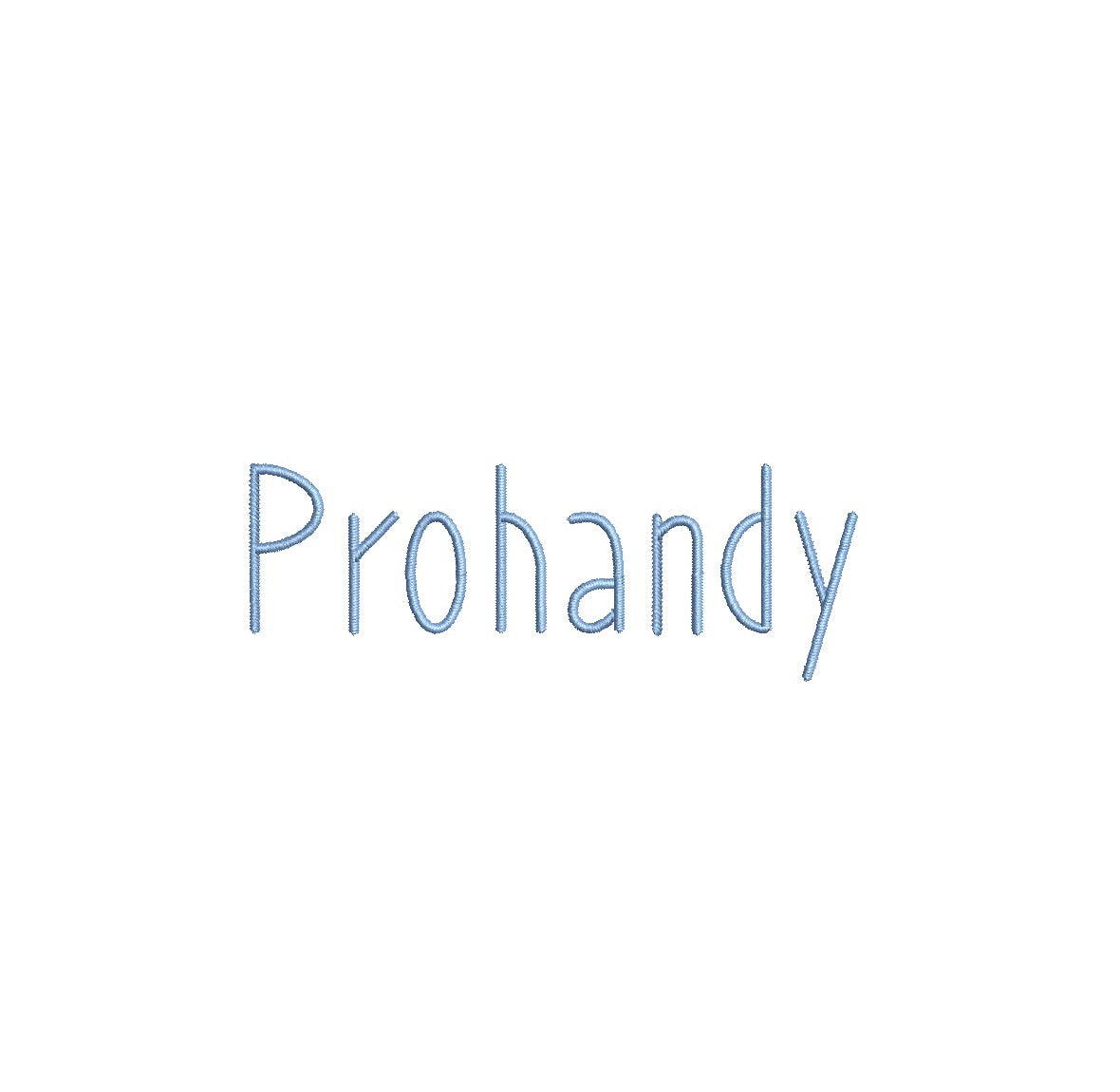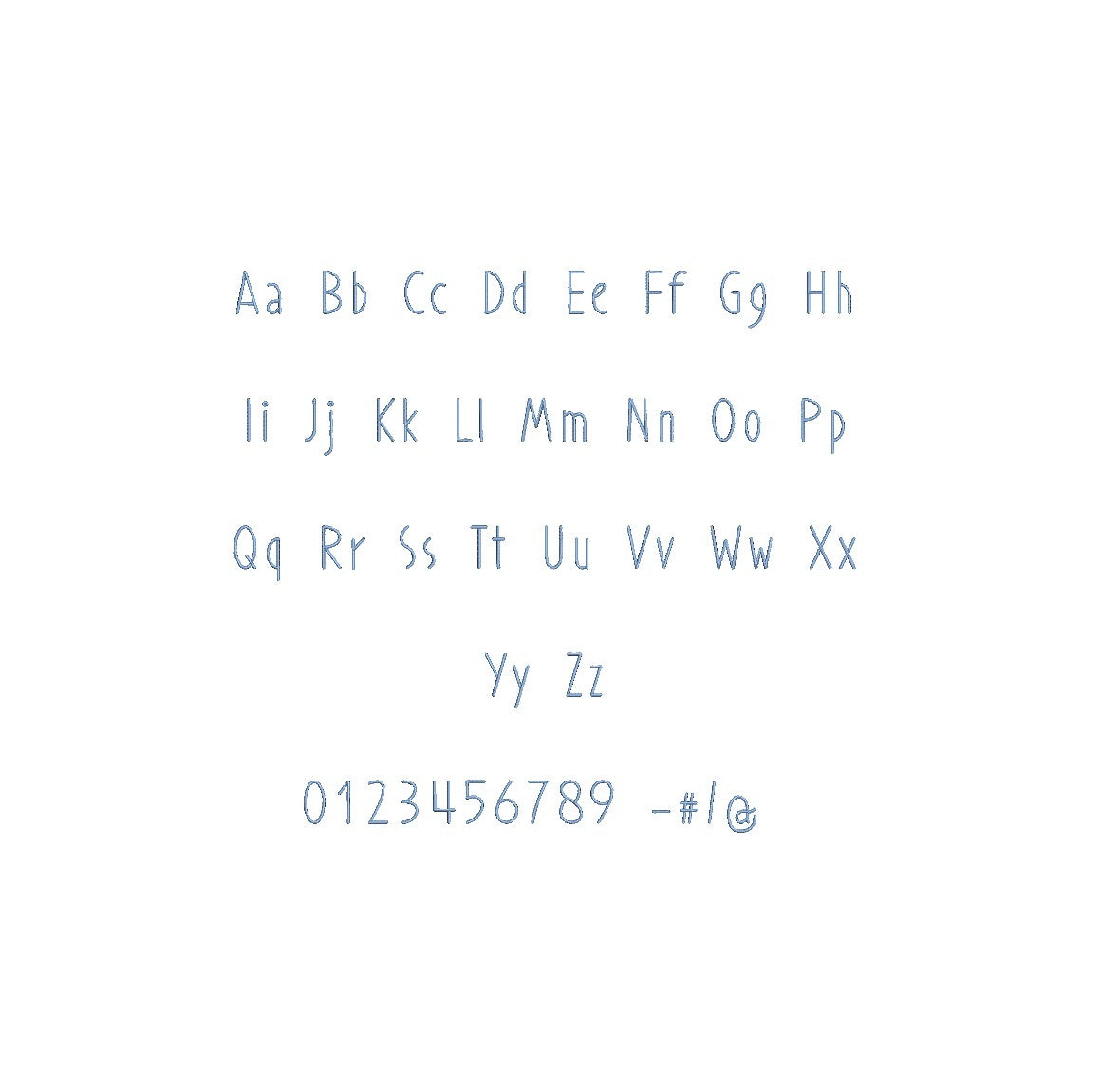
Introducing Prohandy Regular ESA Font, your essential companion for impeccable embroidery! Designed for seamless compatibility with Wilcom Studio e4.5.6 and Hatch 3 versions and beyond, this font enhances your creative journey. Elevate your embroidery projects with Prohandy's precision and versatility, perfect for logos, monograms, and text elements. Whether you're a seasoned professional or a passionate hobbyist, Prohandy caters to all skill levels. Unlock a world of design possibilities and watch your creations come to life with unmatched style. Don't miss the opportunity to enhance your embroidery – acquire Prohandy today and experience excellence in every stitch, making your designs truly extraordinary!